Monospace font pairings
Monospace fonts invoke a retro, tech-oriented vibe: their design style is ideally suited for programming fonts or for something like a vintage video game website.
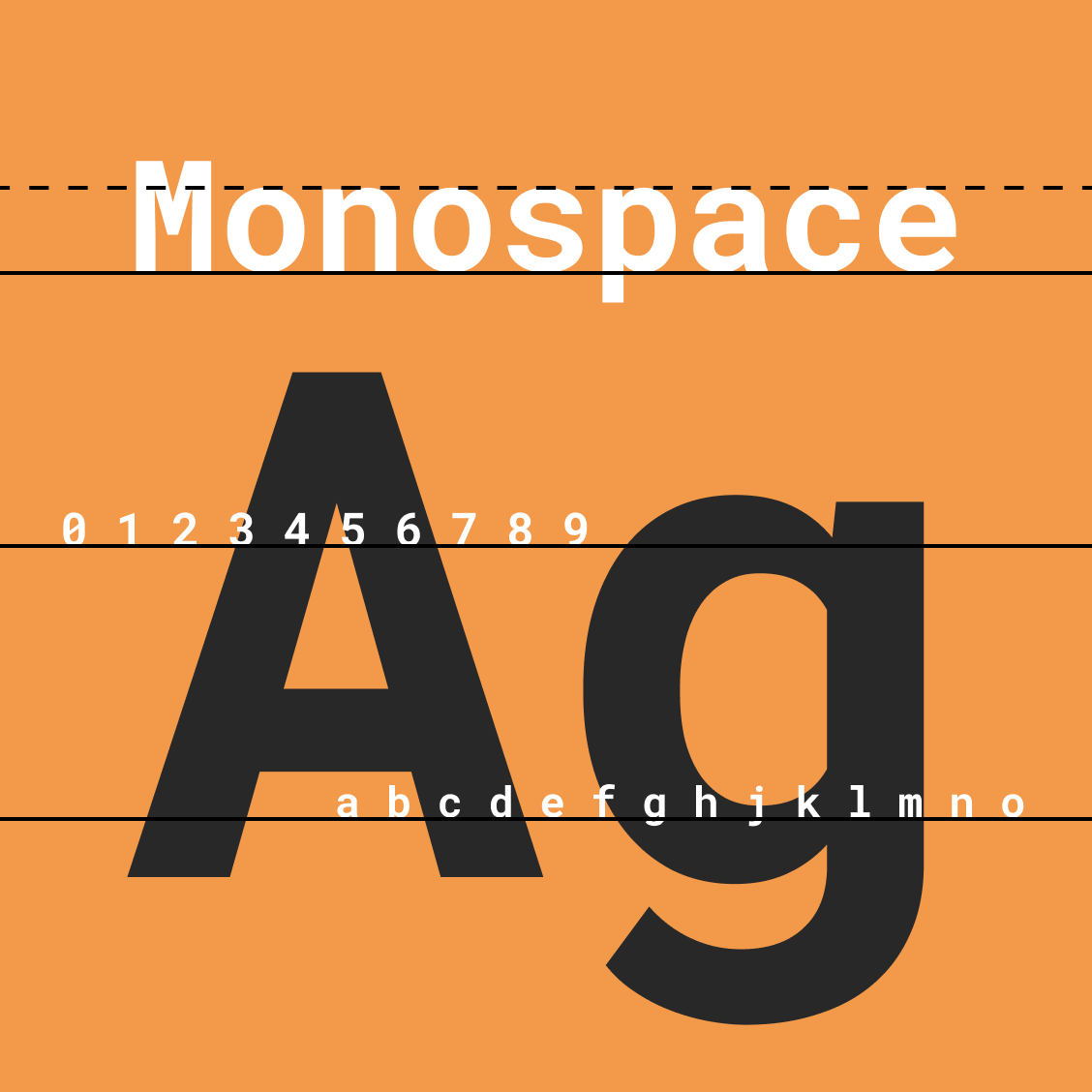
IBM Plex Mono font pairing
IBM Plex Mono is an international typeface used to show code snippets.
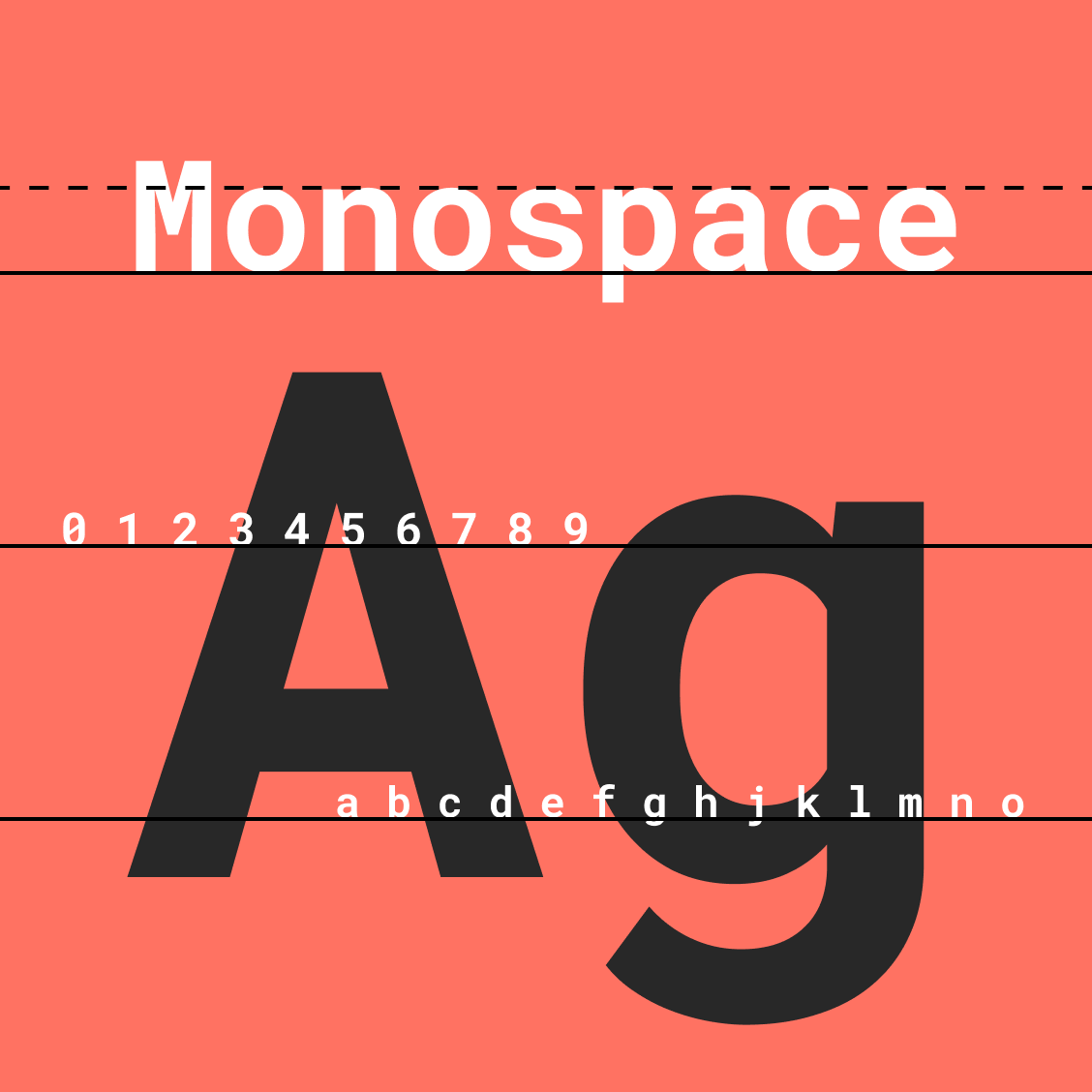
Ubuntu Mono font pairing
The Ubuntu font family is a sans-serif typeface funded by Canonical.
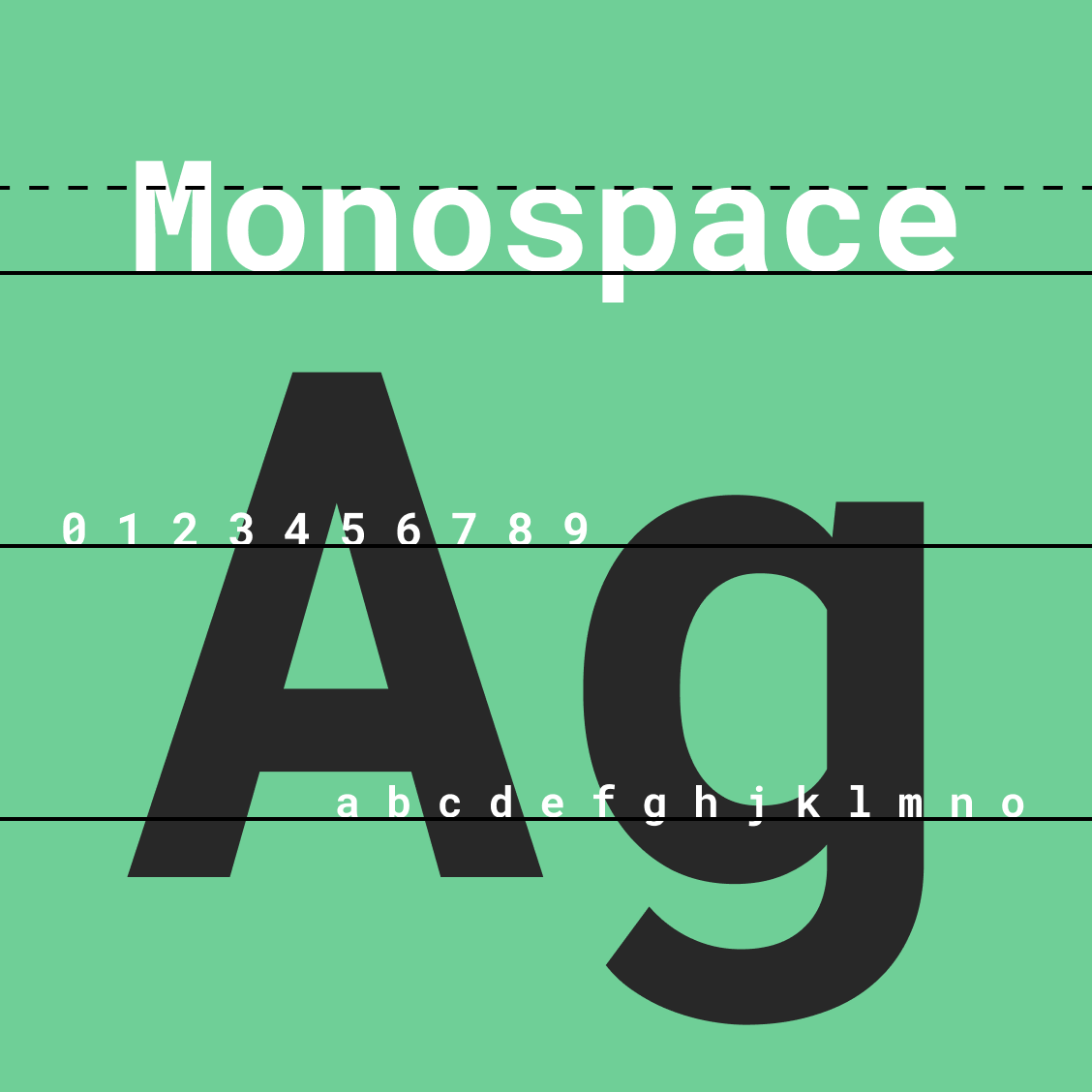
Roboto Mono font pairing
Roboto is an open source, sans-serif font originally developed by Google for Android.
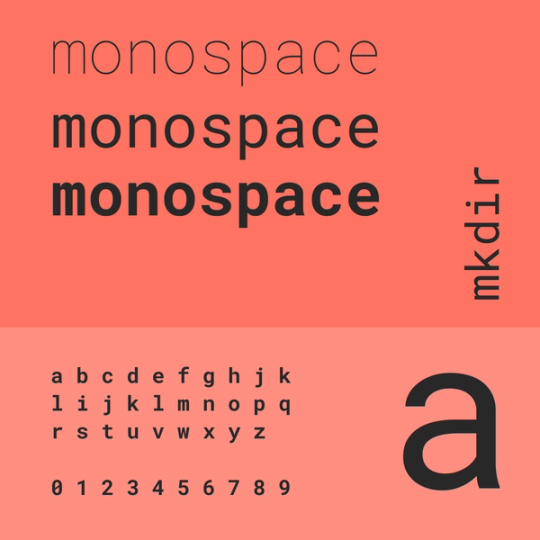
Monospace font pairings
Monospace fonts tend to evoke typewriters because of their blocky, non-proportional spacing and characters, but they’re a great choice for any designer who wants to create a sparse, minimalist feel.
Programming fonts
Early computers had limited graphical capabilities, so monospace fonts were used out of necessity: these days they’re widely used by programmers because they’re more readable than proportional fonts.
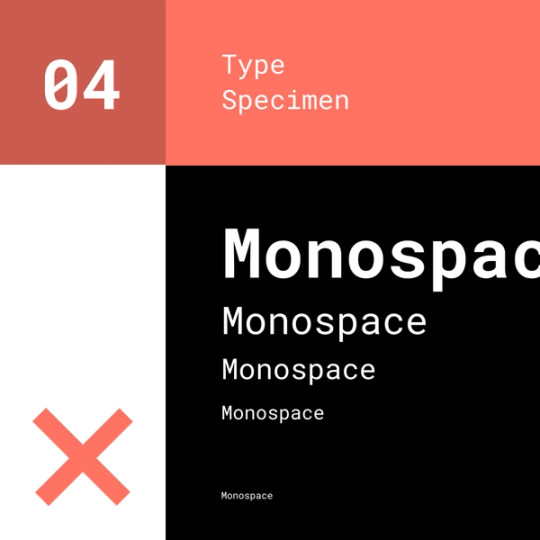
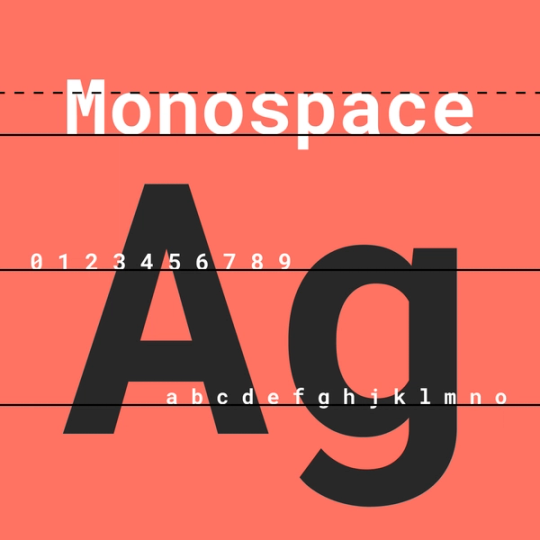
Monospace fonts uses
Proportional spacing allows monospace fonts to represent things visually, not just textually: they’re used in poetry, guitar tablature, and even biochemistry to create visual pictures or measure time.
Free monospace fonts
Many well-known fonts are monospace, including Courier, Courier New, Lucida Console, and Inconsolata. You can also download free monospace font pairings including Apercu, Roboto, and IBM Flex.